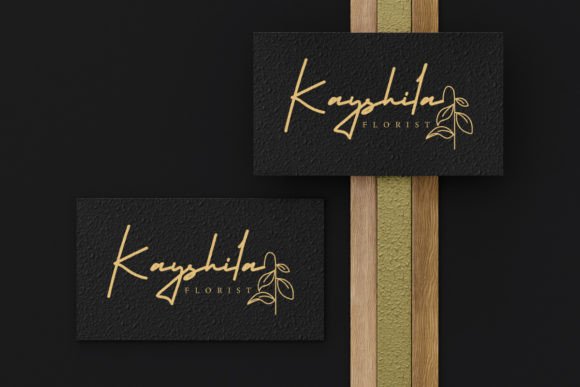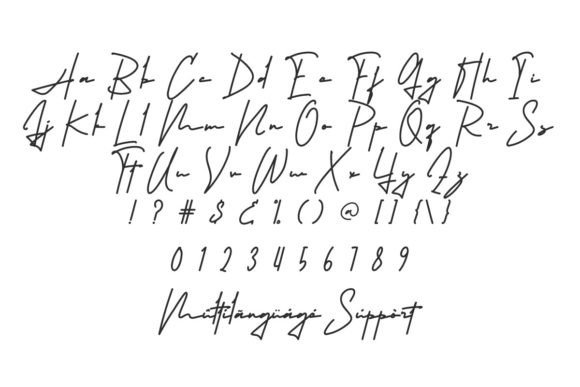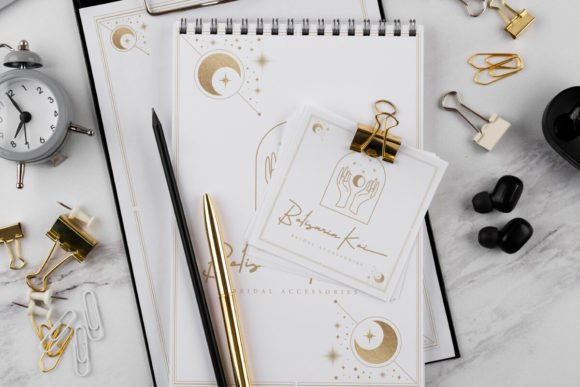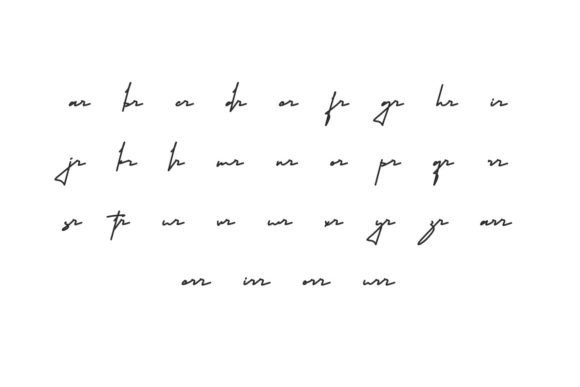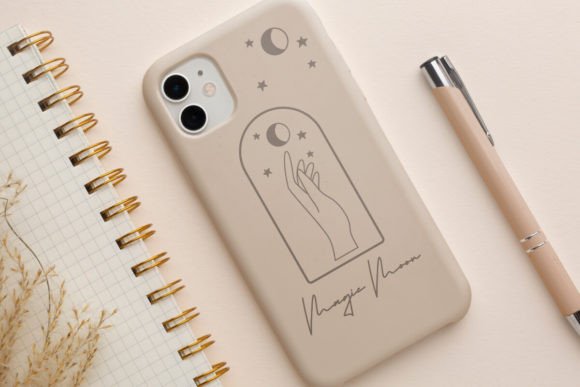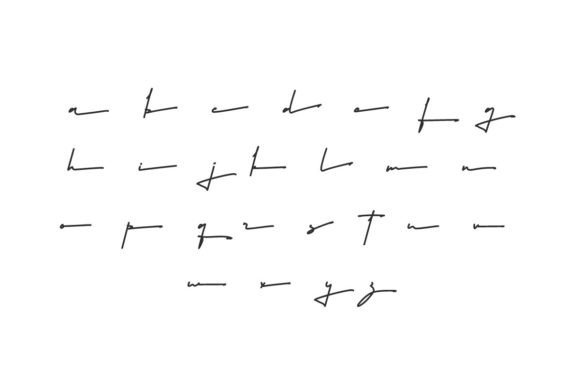
Introduction to Gentala Rembulan Font
Gentala Rembulan is a bold professional handwriting signature font with a classy look.
It has a monoline style i e.
Key Features of Gentala Rembulan Font